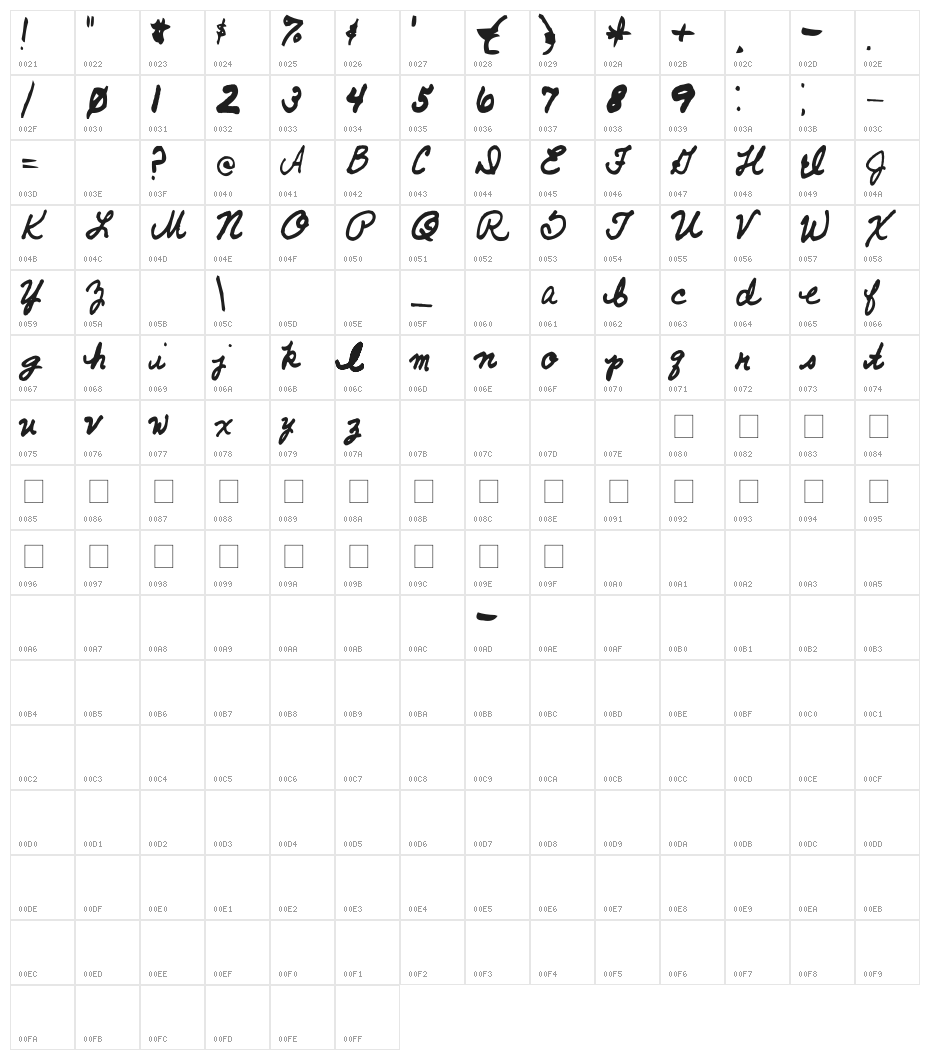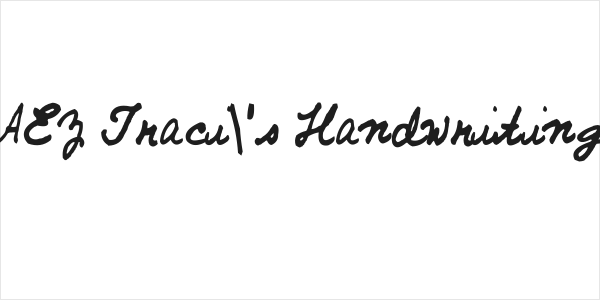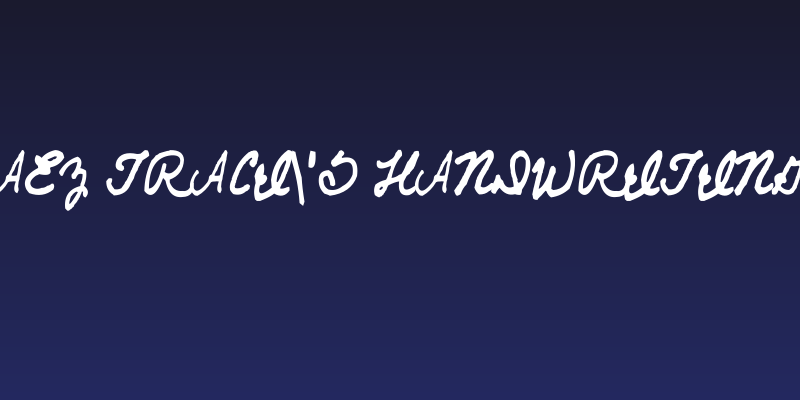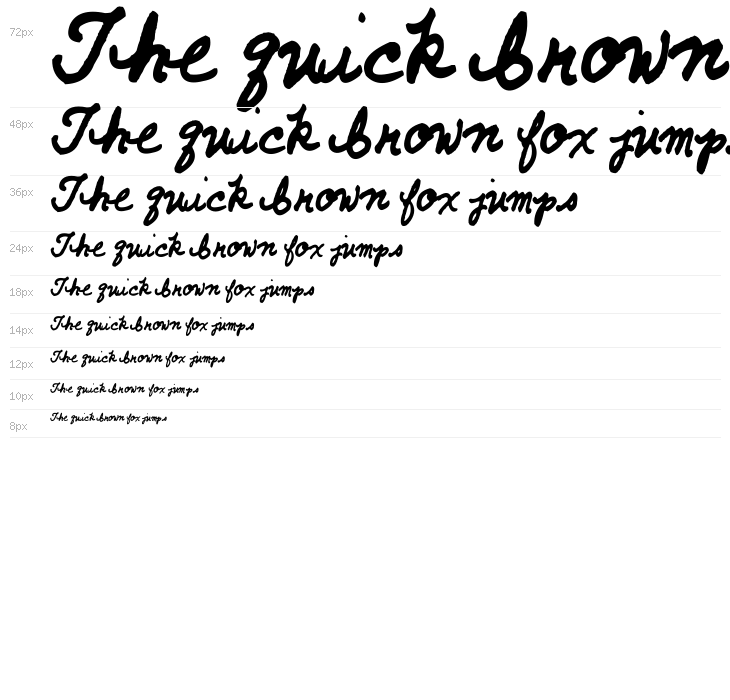
AEZ Traci's Handwriting Font
AEZ Traci's Handwriting Description
This font exudes a personal and informal style, reminiscent of natural handwriting. The letters are connected in a fluid, cursive manner, giving it an organic and spontaneous appearance. The strokes vary in thickness, adding a dynamic and lively feel to the text. The uppercase letters maintain a consistent height, while the lowercase letters exhibit a playful variation in size and form. Numbers and special characters follow the same handwritten style, ensuring uniformity across all elements. This font is ideal for projects that require a personal touch, such as invitations, greeting cards, or artistic designs. Its unique style captures the essence of handwritten notes, making it perfect for conveying warmth and authenticity.
| Use Case | Logos, Headlines, Artistic designs |
| Proposed Projects | Ideal for invitations, greeting cards, personal notes, and artistic designs. |